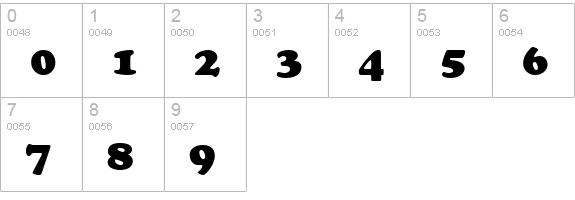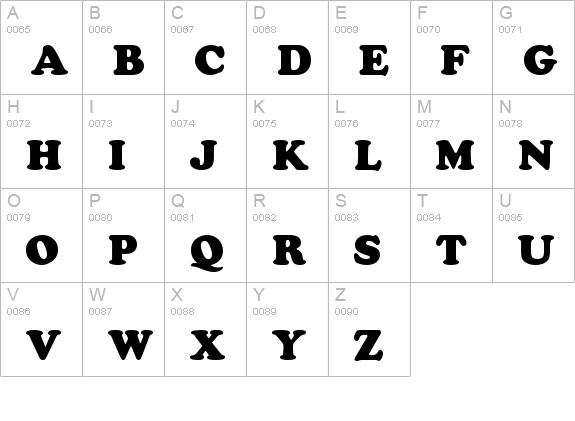
Darken Holpa Font Details
Darken Holpa font is a versatile and modern typeface that exudes a sense of mystery and elegance. With its unique combination of sharp angles and smooth curves, this font is perfect for adding a touch of sophistication to any design project. The bold and stylish letterforms of Darken Holpa make it ideal for headlines, logos, branding, and more. What sets Darken Holpa font apart is that it is available for free download at FontsMarket.com. This means that you can easily access this high-quality font without any cost, making it a valuable addition to your font collection. Whether you are a designer looking to elevate your projects or a creative individual in need of a striking typeface, Darken Holpa is sure to impress with its modern aesthetic and timeless appeal. Download Darken Holpa font today and bring a touch of sophistication to your designs.